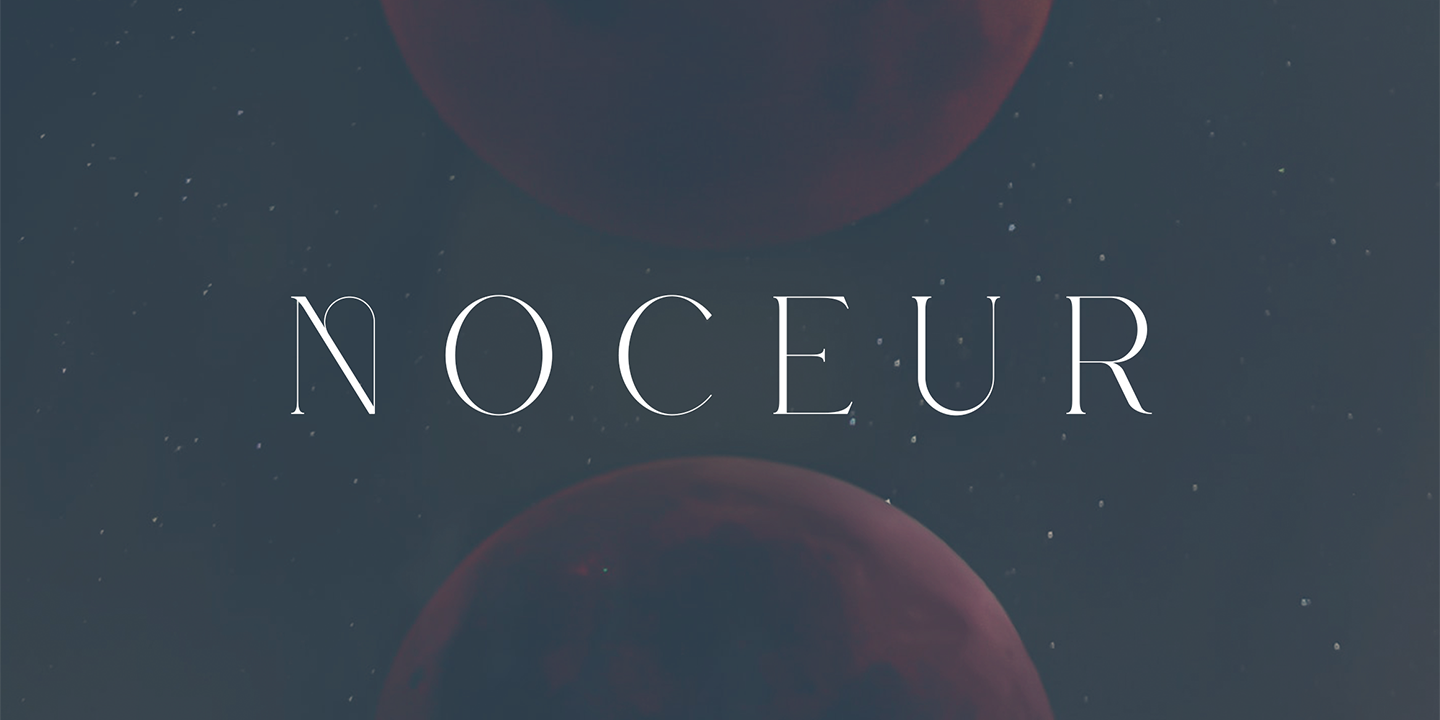
Noceur Font is perfect for luxury branding projects, high-end fashion designs, elegant wedding invitations, premium packaging, sophisticated magazine layouts, upscale restaurant menus, boutique hotel branding, and exclusive event materials.
What makes Noceur Font exciting is its sophisticated elegance combined with modern versatility. This exceptional typeface captures the essence of contemporary luxury while maintaining timeless appeal. The font's refined character details and carefully balanced proportions create an atmosphere of exclusivity and premium quality that resonates with discerning audiences seeking distinguished typography solutions.
Noceur Font family includes comprehensive weight variations: Thin, Light, Regular, Medium, Bold, and Black, along with corresponding italic styles. Each weight maintains the font's luxurious character while offering designers flexibility for creating sophisticated hierarchical text structures and elegant typographic compositions.
Creative professionals consistently choose Noceur Font Free Download for projects demanding sophistication and visual impact. This remarkable typeface has established itself as a favorite among luxury brands and high-end design studios worldwide. The font's ability to convey both modernity and classic elegance makes it an invaluable asset for designers working across various premium market segments.
The distinctive characteristics of Noceur Font include refined letterform construction with subtle contrast variations that enhance readability while maintaining visual interest. The font's carefully crafted curves and precise angles create a harmonious balance between geometric precision and organic flow, resulting in typography that feels both contemporary and timelessly elegant.
Design agencies specializing in luxury markets frequently select Noceur Font for clients requiring sophisticated brand communication. The font's versatility allows it to perform excellently in both display and text applications, making it suitable for comprehensive branding systems that need consistency across multiple touchpoints while maintaining premium appeal.
The technical craftsmanship behind Noceur Font demonstrates meticulous attention to typographic details. Advanced OpenType features support professional typography workflows, while extensive language support ensures global applicability. The font's spacing and kerning have been optimized for various media applications, from digital screens to high-quality print materials, ensuring consistent performance across all design contexts.